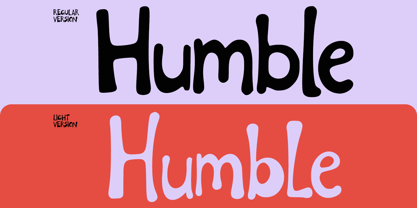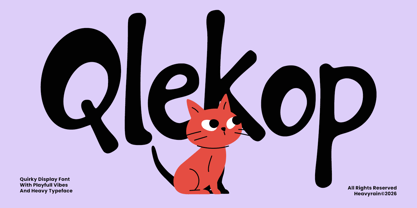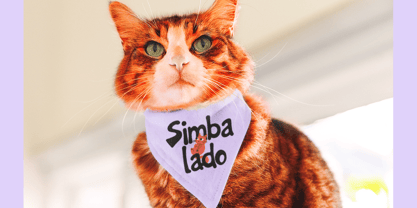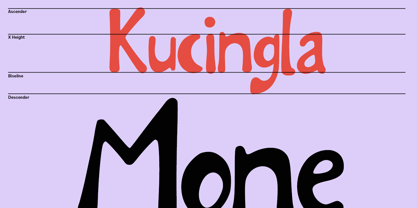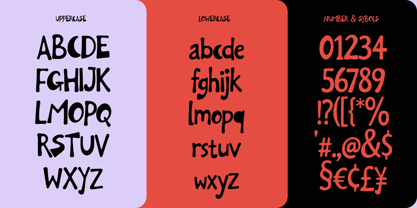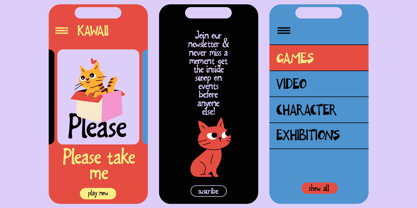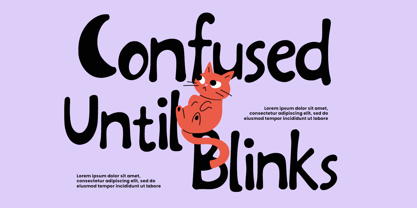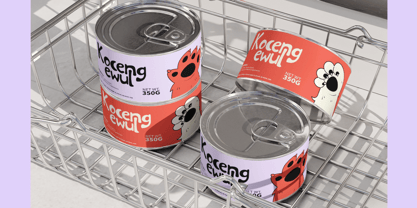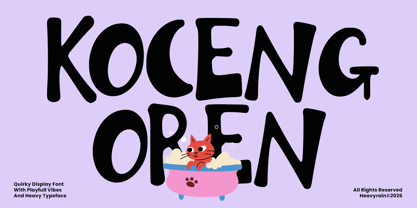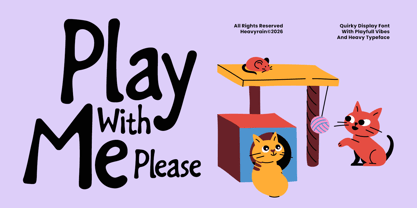
Qlekop
von Heavyrain
Die Schriftfamilie Qlekop wurde von Devin Bagus Kurniawan entworfen und von Heavyrain veröffentlicht. Qlekop enthält 2 Stile und Familienpaketoptionen. Mehr über diese Familie
Qlekop is a bold display typeface designed to bring fun, personality, and creativity into every project. Inspired by handcrafted lettering and playful illustration, it features chunky rounded forms, organic curves, and expressive proportions that create a warm and approachable visual style.
Every character has been carefully crafted to preserve a natural handmade appearance while maintaining clarity and strong visual impact. Its friendly personality makes Qlekop perfect for children's brands, food packaging, cafés, lifestyle products, creative logos, posters, editorial headlines, and colorful advertising.
Balancing playful charm with practical usability, Qlekop is versatile enough for both print and digital applications. Whether you're building a memorable brand identity or designing eye-catching promotional materials, this typeface helps your message feel energetic, inviting, and full of character.
Designed for creatives who love expressive typography, Qlekop transforms ordinary words into bold visual statements with a cheerful handcrafted touch.